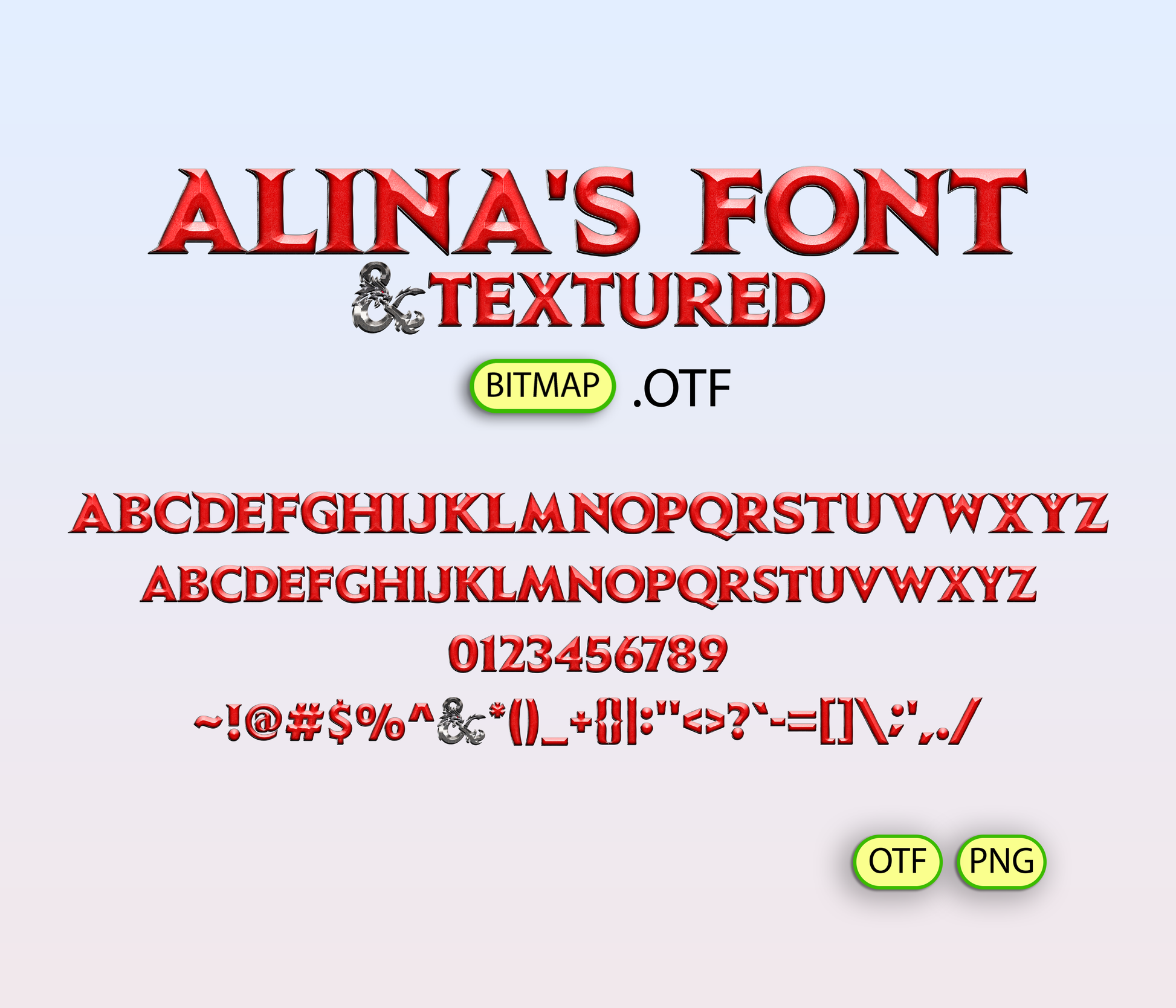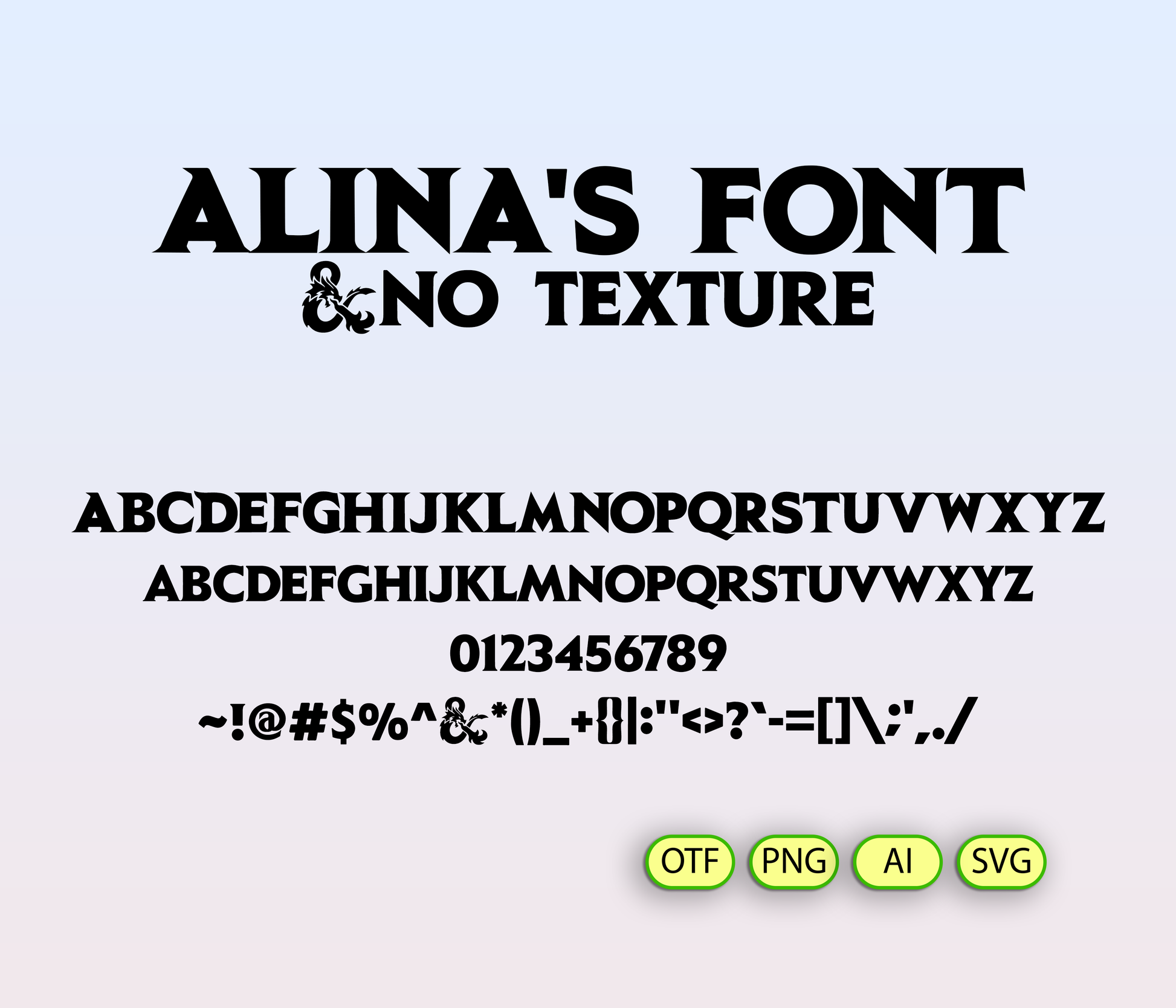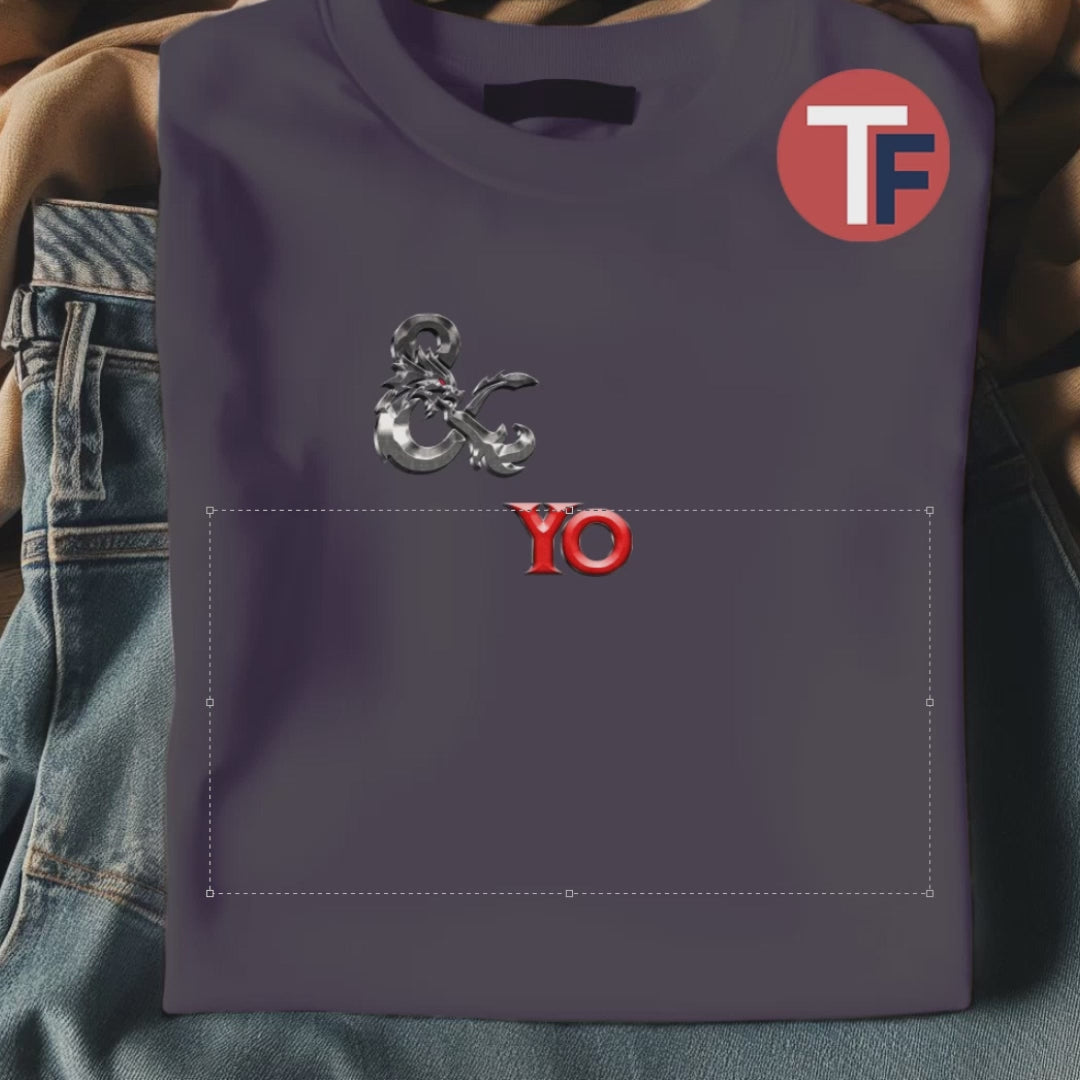
Epic Fantasy Font Textured
Unleash Your Creativity with the Epic Fantasy-Inspired Font
Step into a realm of adventure and magic with our Epic Fantasy-inspired font. Perfect for fans, game masters, event planners, and designers, this font encapsulates the excitement and mystery of epic quests and heroic deeds. Whether creating event invitations, themed merchandise, or digital content, our Epic Fantasy font ensures your projects resonate with the enchanting spirit of this timeless universe.
Our Epic Fantasy-inspired font features bold, medieval-style lines and intricate details that reflect the rich lore and adventurous spirit of the genre. This versatile font is ideal for various applications:
To ensure maximum usability and flexibility, our Epic Fantasy-inspired font includes both textured and non-textured variants. The non-textured version ensures compatibility with all types of software, including Canva, allowing users of all skill levels to seamlessly incorporate the font into their designs.
Many people seek out an Epic Fantasy Font generator online to mimic this look. Steer clear! No font generator can match the quality of this Epic Fantasy Font, which comes in two versions: a textured colored font and a simple font. This is particularly beneficial if you plan to use it with a cutting machine.
Our Epic Fantasy font pays tribute to the legendary genre while empowering you to infuse your designs with its magical and adventurous spirit. Whether crafting promotional materials, unique merchandise, or personal projects, this font allows you to communicate with the grandeur and excitement that define epic fantasy. Ready to embark on a creative journey filled with adventure and magic? This font is your key to unlocking a world of captivating design.